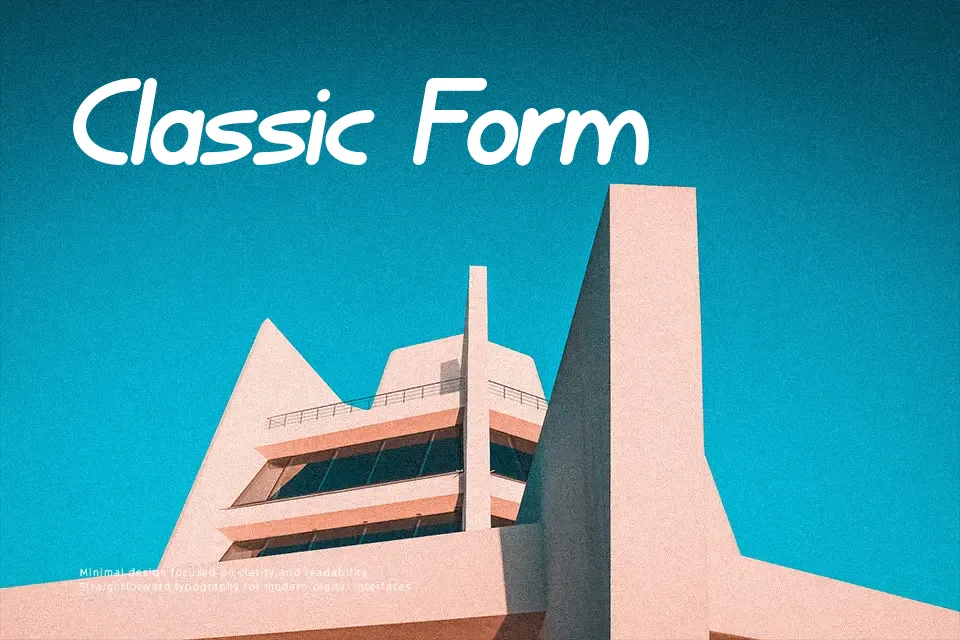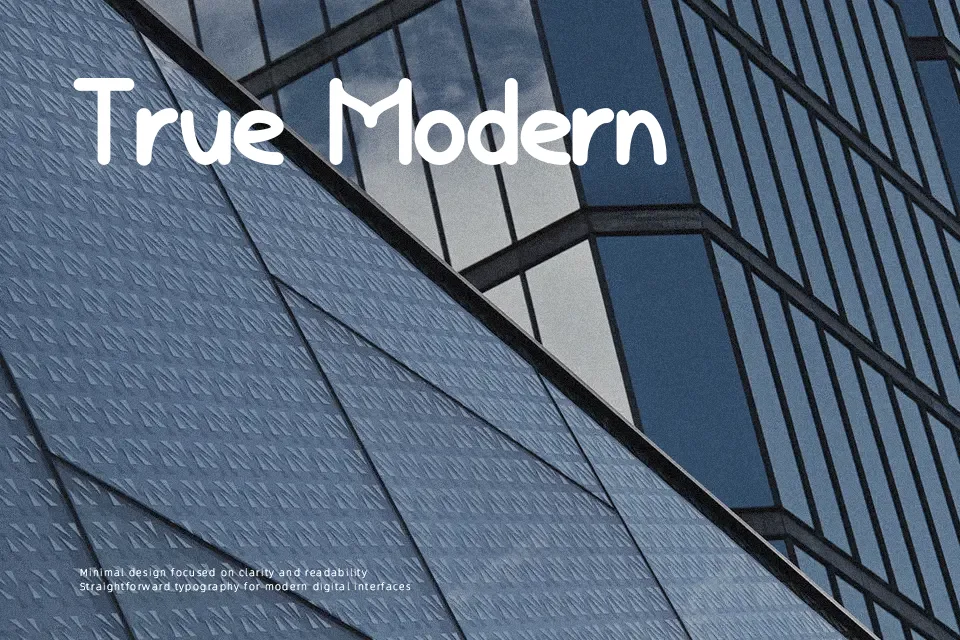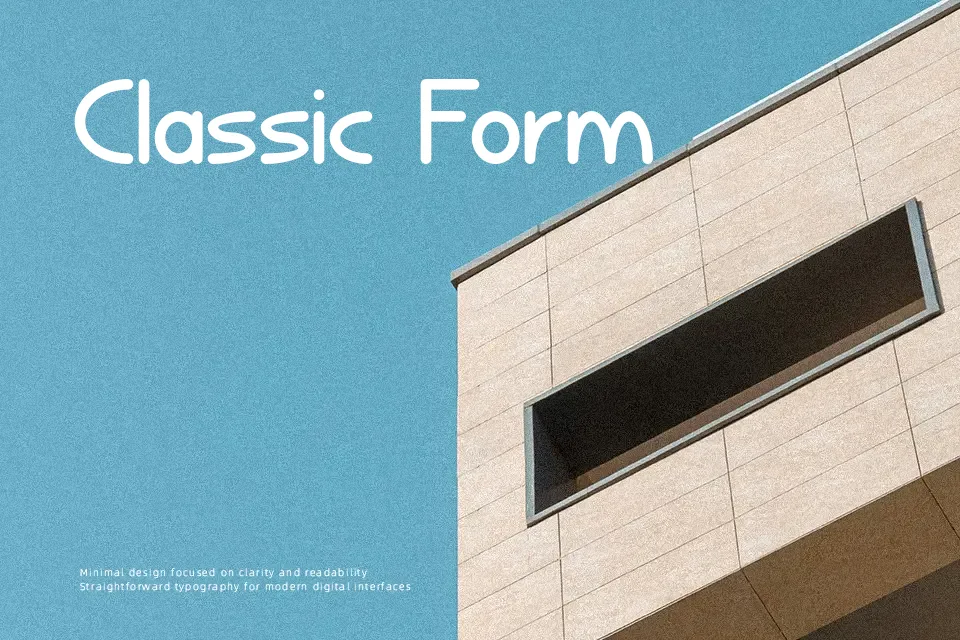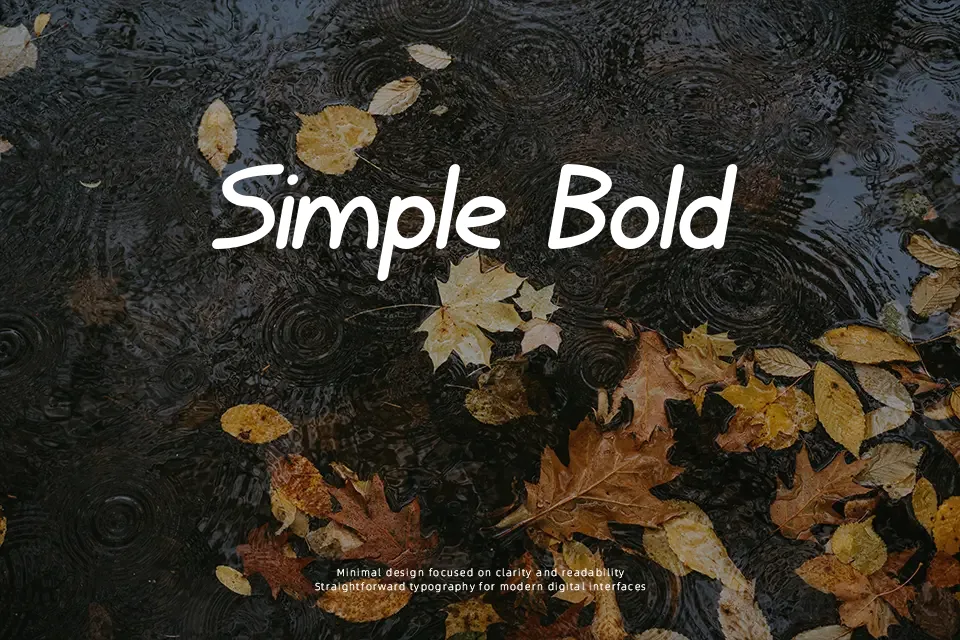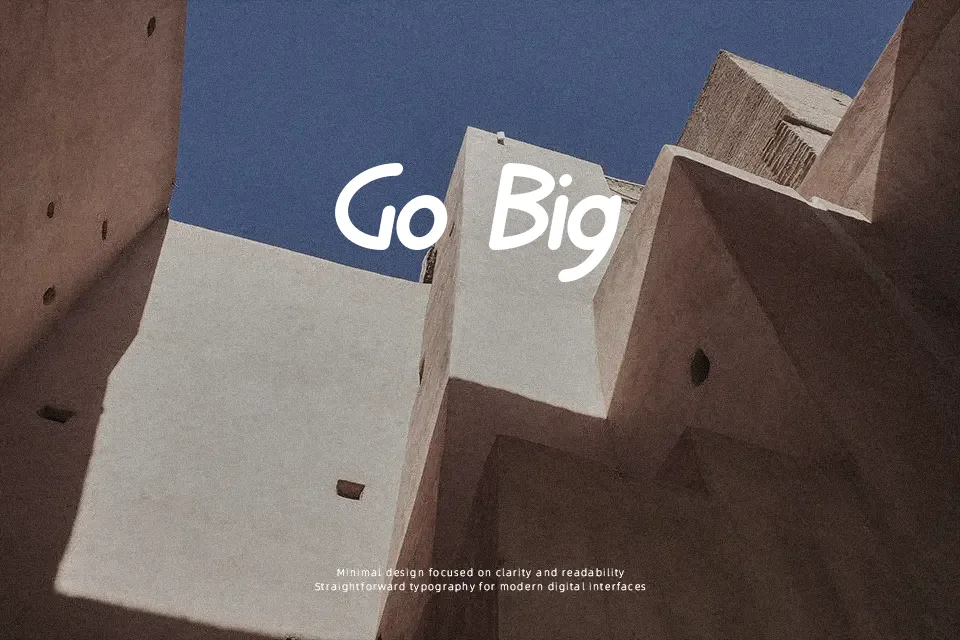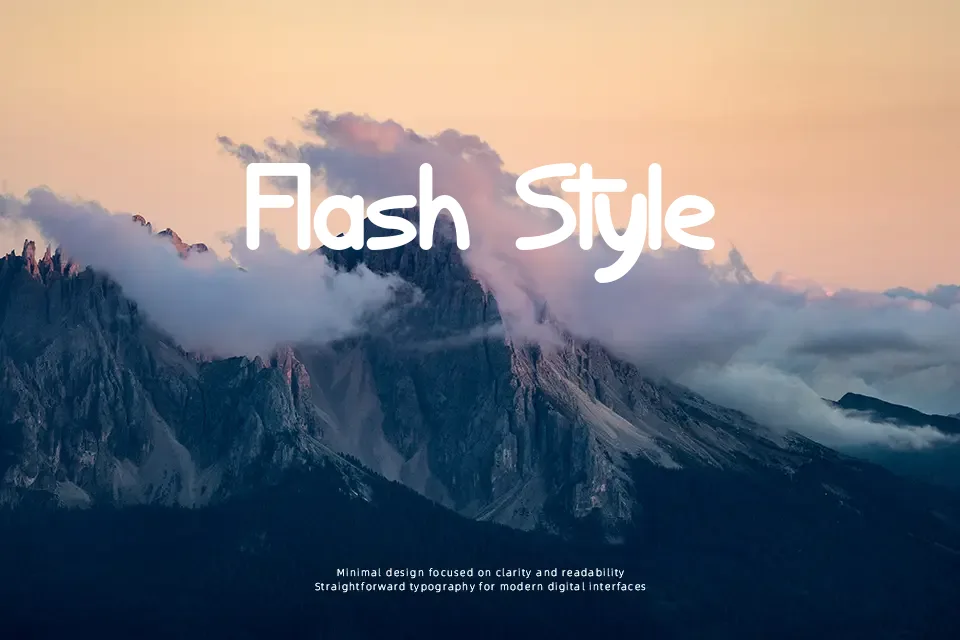
Rondouillard Font
The letterforms remain easy to distinguish in short display text when using the Rondouillard Font, thanks to its approachable, plump structure and well-balanced spacing. This comic-style typeface features smooth, rounded terminals and a uniform stroke thickness that works to create a highly friendly, casual rhythm across both the uppercase and lowercase character sets. The open counters and predictable proportions help maintain essential clarity in larger headlines or playful graphic layouts. However, the slightly wider, chubby forms naturally reduce continuous reading comfort in dense editorial contexts. It performs best in children’s publishing, casual branding, and lighthearted packaging, where its wonderfully warm design can truly shine.
children’s book covers
casual product packaging
playful social media graphics
comic dialogue headlines
Perfect for headline, kids, and packaging, with a cute and comic style.